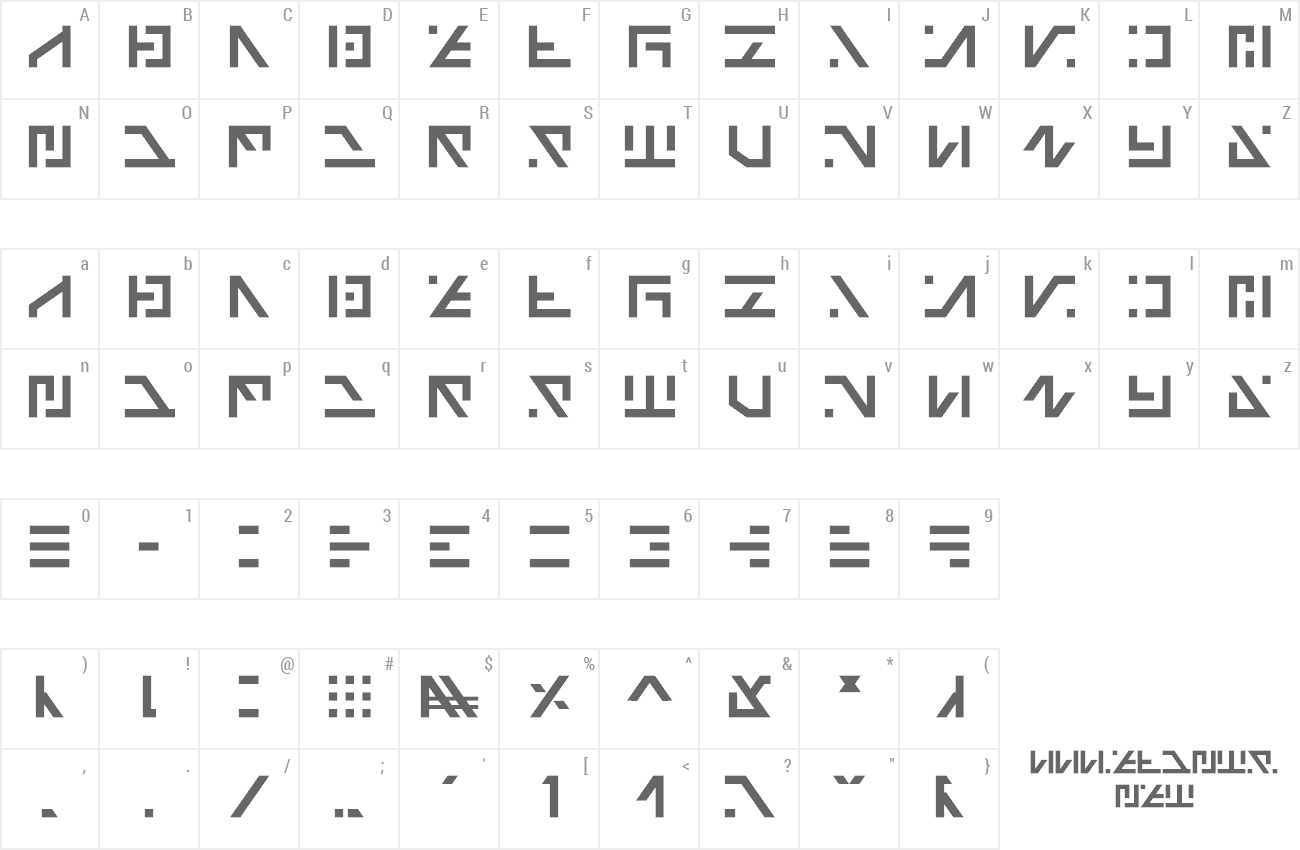
| Font name: | Galactico Basic |
| Author: | JuanMikes |
| Galactico is a Sci-fi style inspired display font that is perfect for a detail & unique design, the file includes .OTF format. It comes with 215 glyphs + some international characters for multiple language support. Enjoy! and be awesome. |